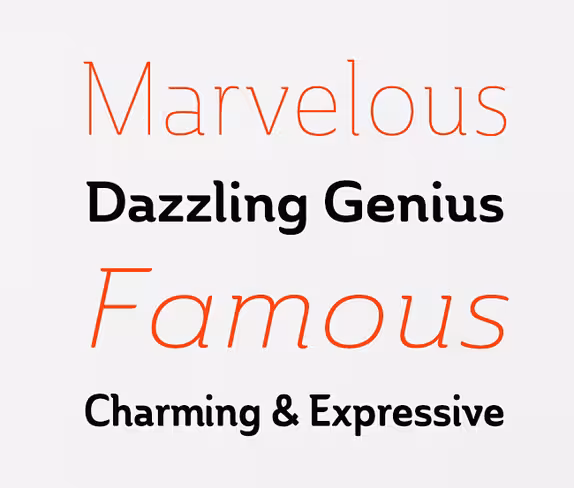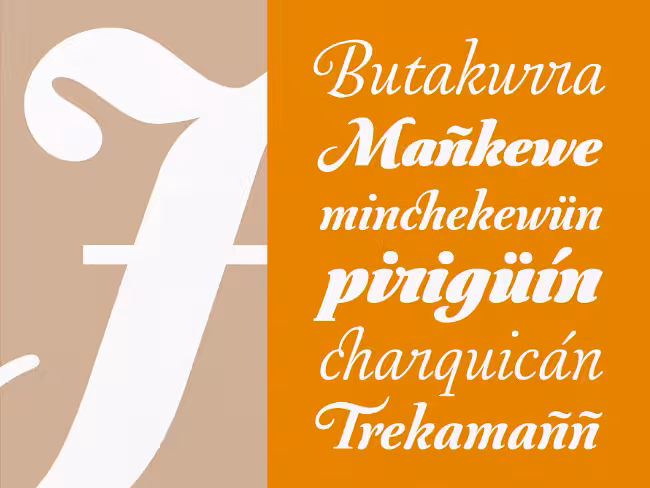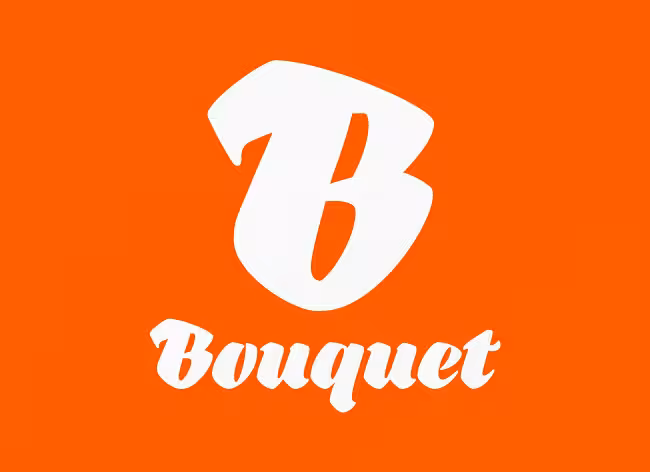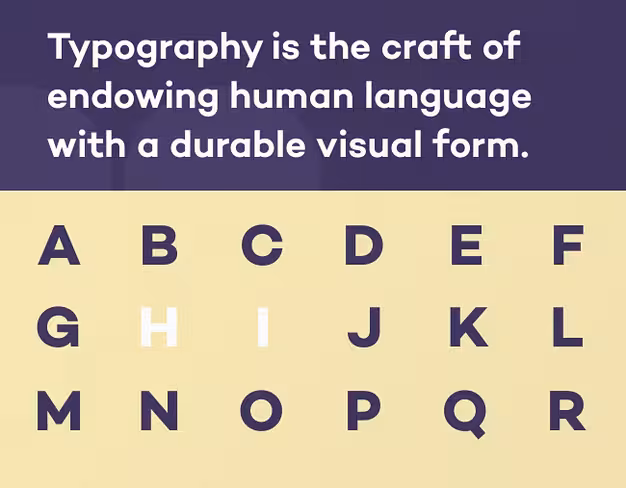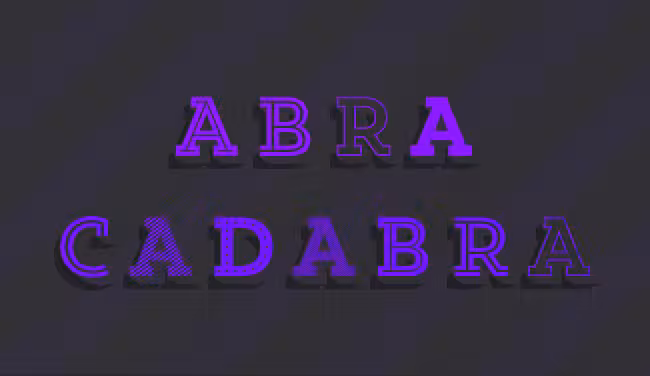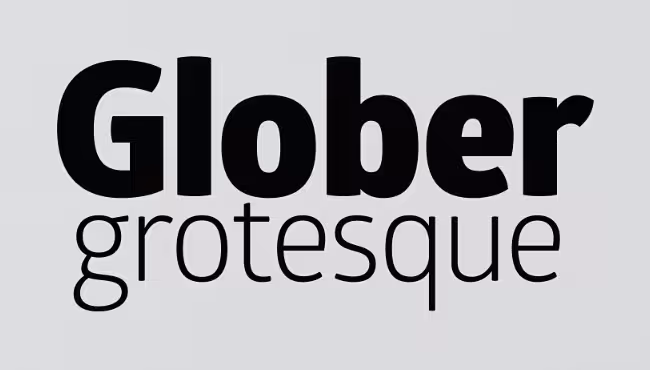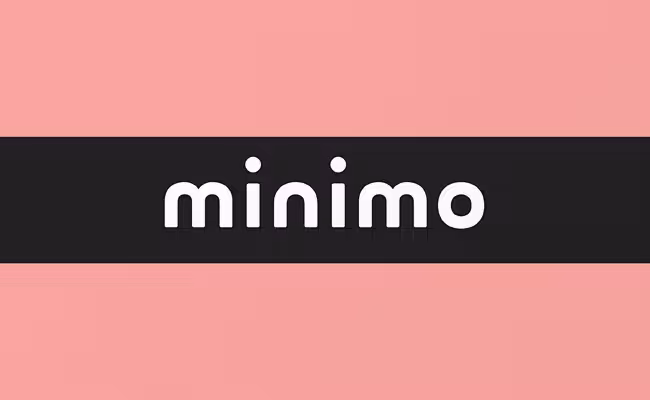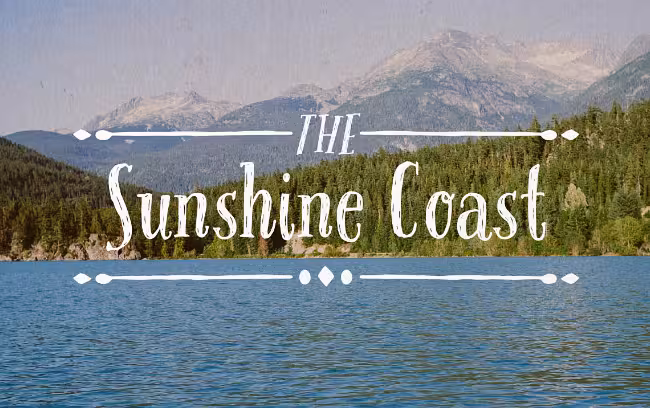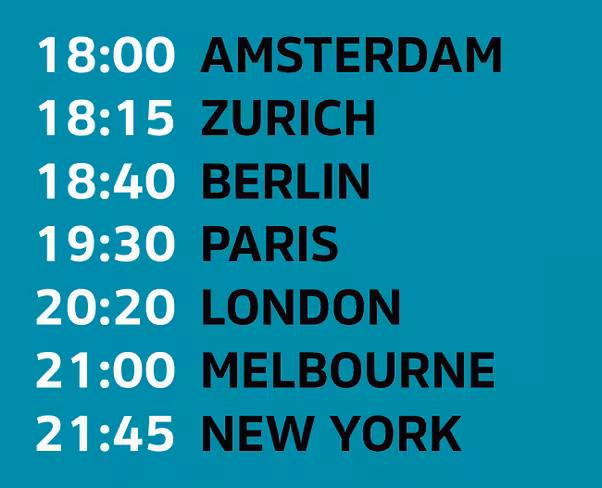
Our favorite typefaces from February 2014
February may have been a short month, but with it came a slew of new typefaces that we just had to share. Let’s take a look.
Fontfabric: Glober
Glober is characterized by excellent legibility in both Web and print.
Latinotype: Showcase
Showcase is a handmade font consisting of four styles and a set of ornaments & dingbats.
Rene Bieder: Campton
Campton is a simple sans–serif with a geometric skeleton.
Blackletra: Haltrix
An aggressive and angular script.
Cultivated Mind: Pacific Northwest Letters
Pacific Northwest Letters is a fun, handwritten font carefully hand painted in two styles.
Ahmet Altun: Minimo
Minimo is a minimalist, cute type family.
Type Dynamic: Celias
Celias is a sharp geometric sans-serif.
Stawix: Rleud
Rleud is a family of 160 fonts, 10 weights with small caps and italics in four widths.
Positype: Lust Slim
Lust Slim is packed with alternates to play with — enough to turn you on and satisfy.
Liebe Fonts: Liebe Doris
The beauty of all-American sign painting and the meticulous craft of German engineering.
Insigne: Ainslie
Geometric design blended with the organic, flowing effect of aboriginal art.
Latinotype: Australis Pro Swash
A touch of whimsy and mannerism.
Commercial Type: Caponi
Expands the notion of what Bodoni’s work was, in three families, Display, Slab, and Text.
Dzianis Serabrakou: Bouquet
Bouquet is a cursive fat typeface influenced by brush writing.
S-Core: Core Magic
Core Magic is a layered type family consisting of 3D, 2D, and shadow effect layers.
Emtype Foundry: Shentox
Shentox is a highly legible contemporary font with a full range of weights.
Latinotype: Ride My Bike Serif
Ride My Bike Serif is inspired by street style.
AndrijType: Bandera
Extremely legible and well-shaped.
Rui Abreu: Signo
Signo is a dynamic sans-serif with reverse contrast, designed for editorial and branding.
Tyler Finck: Uncombined